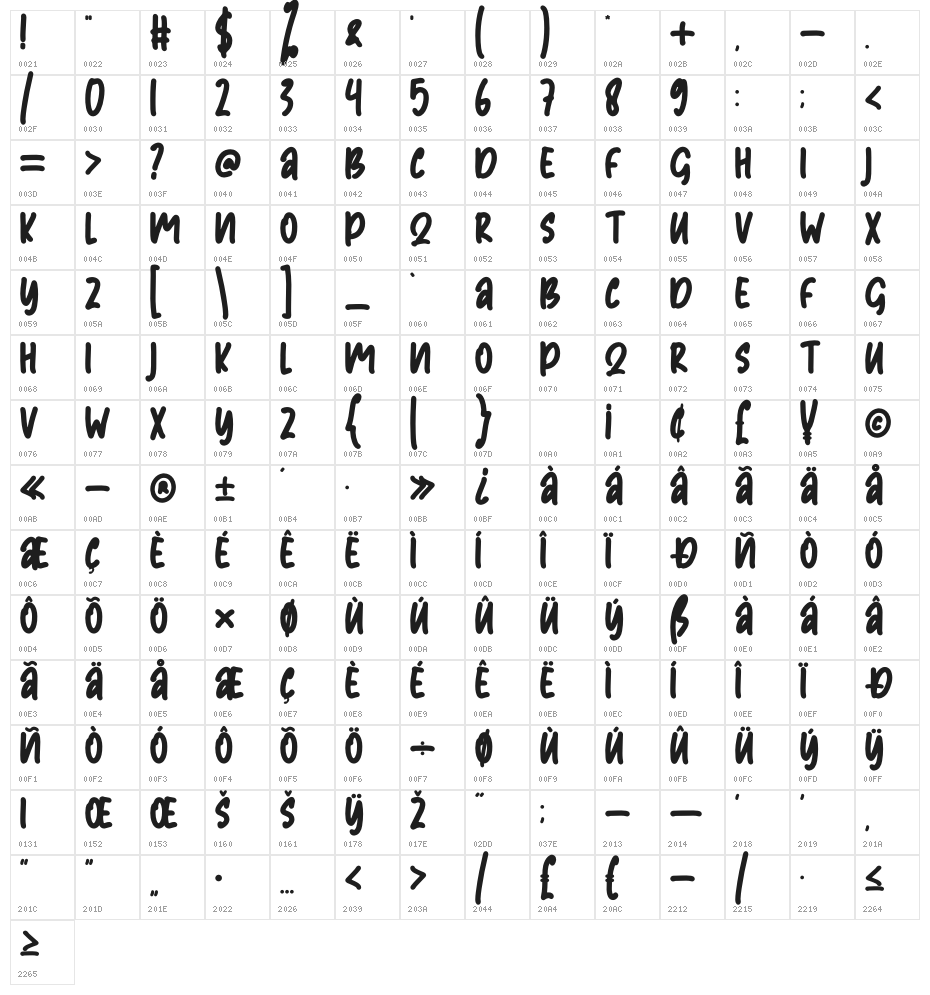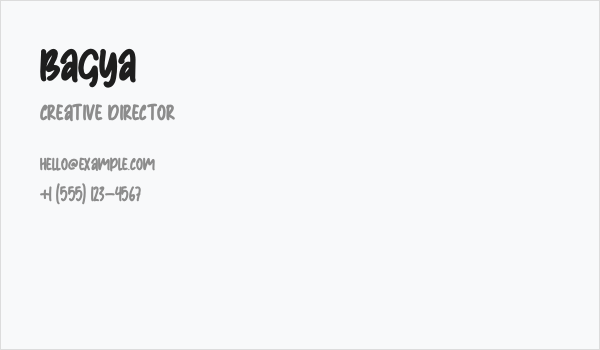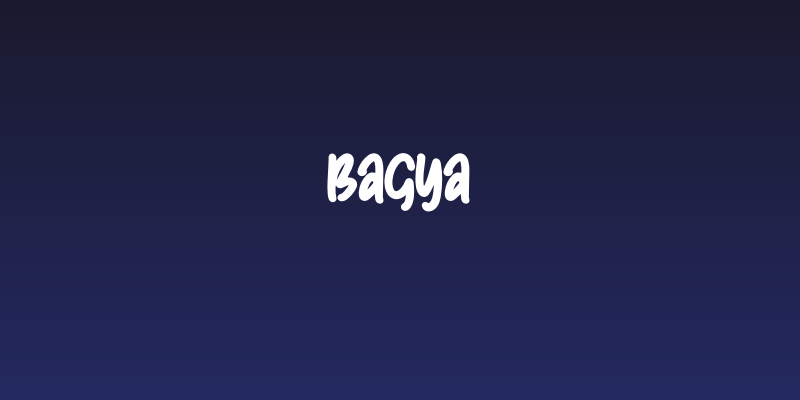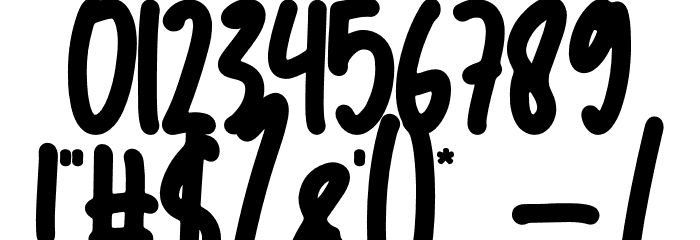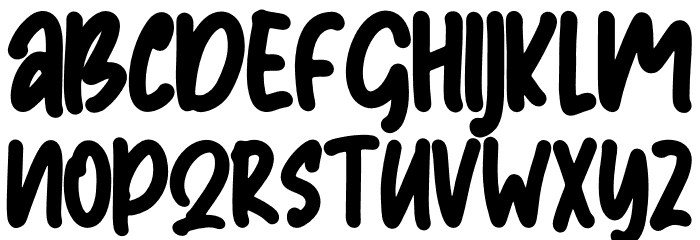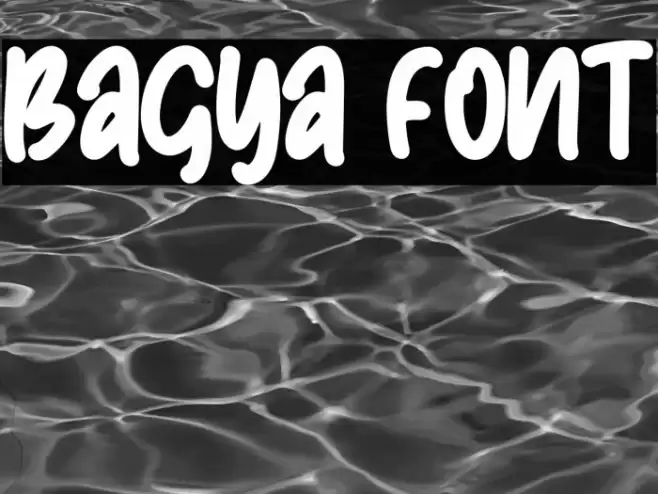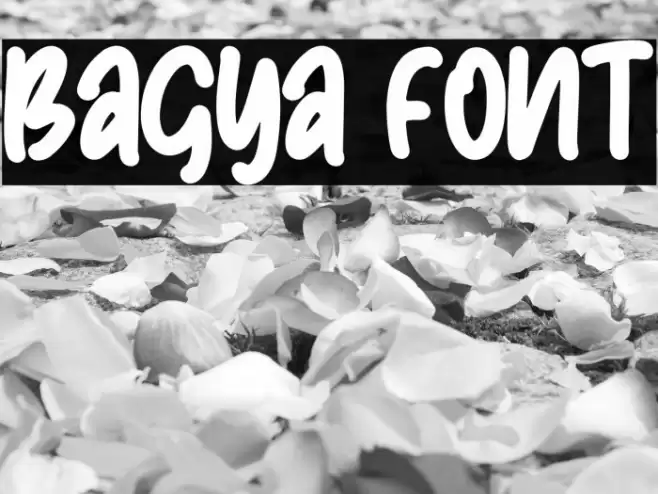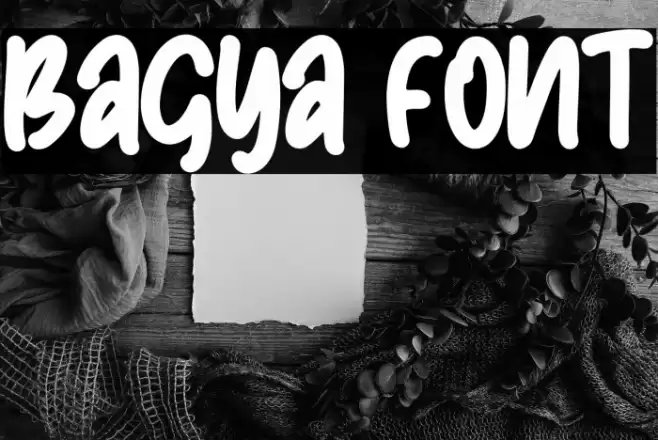
Bagya Font
| Style général | Playful |
| Cas d'utilisation | Headlines, Logos, Informal Text |
| Projets proposés | Ideal for greeting cards, children's books, playful branding, and social media graphics. |